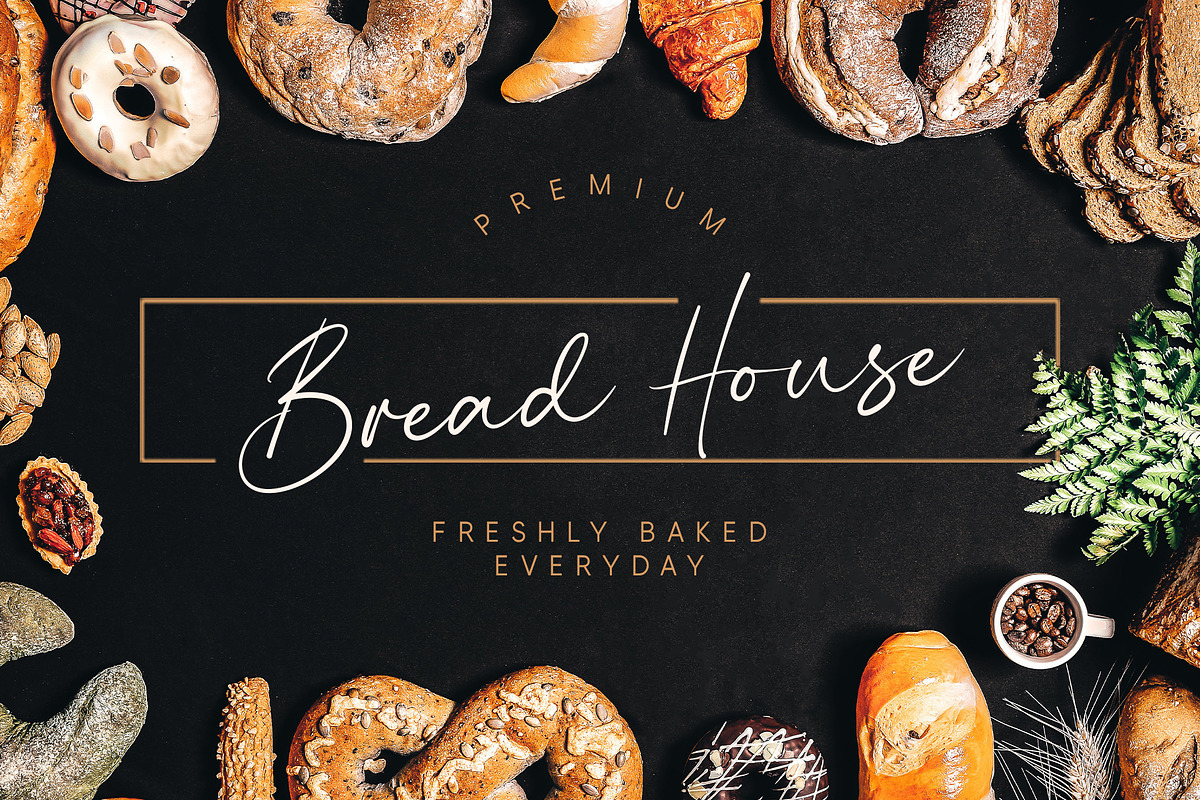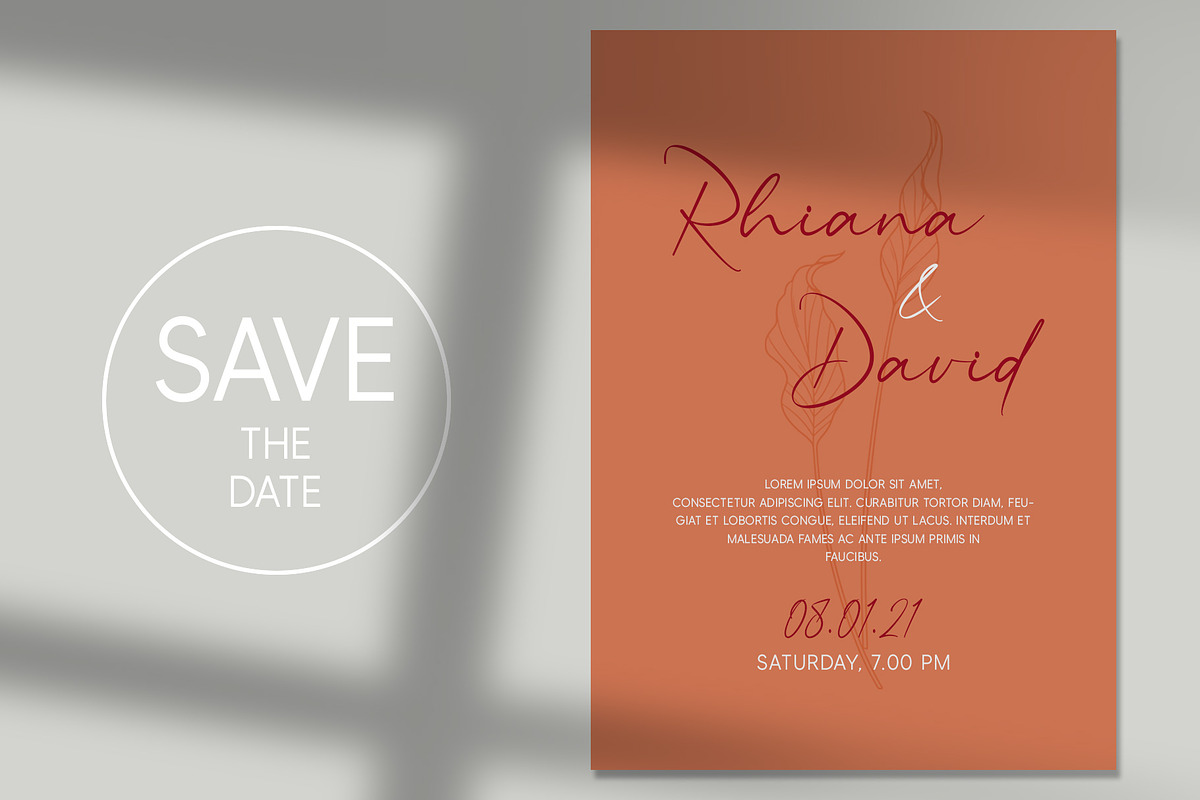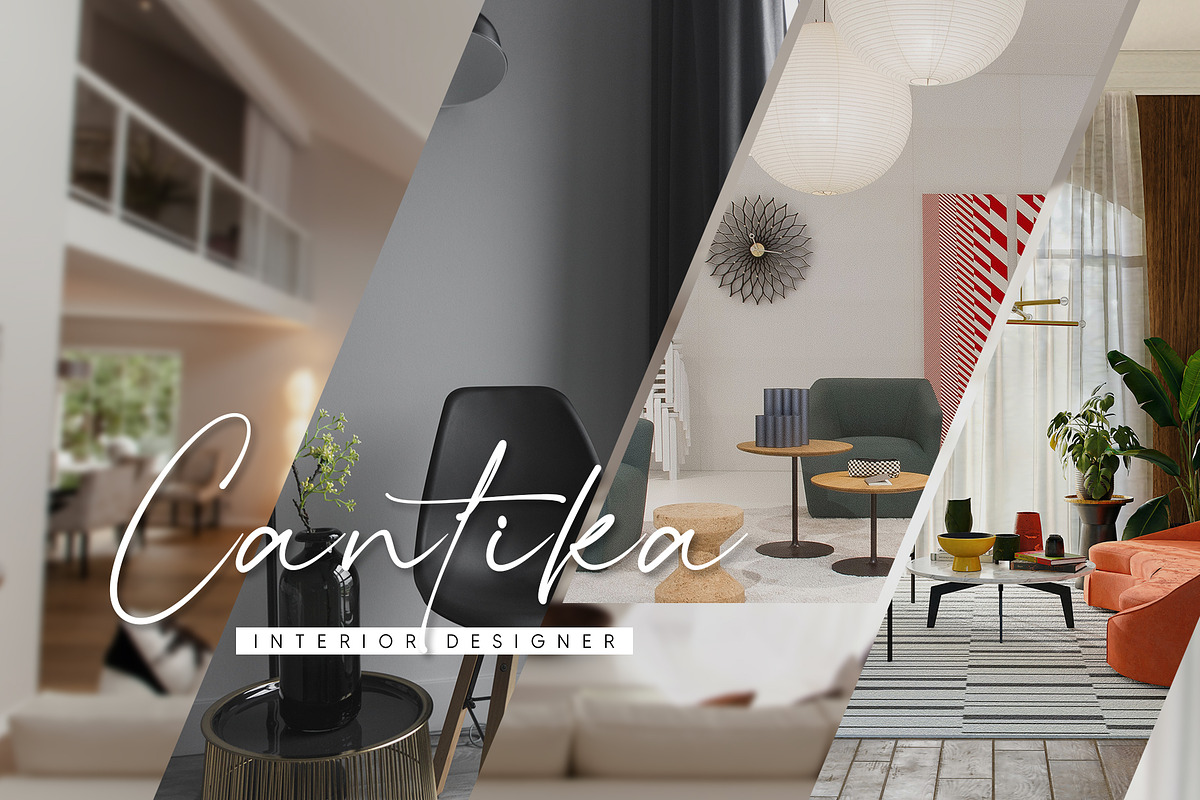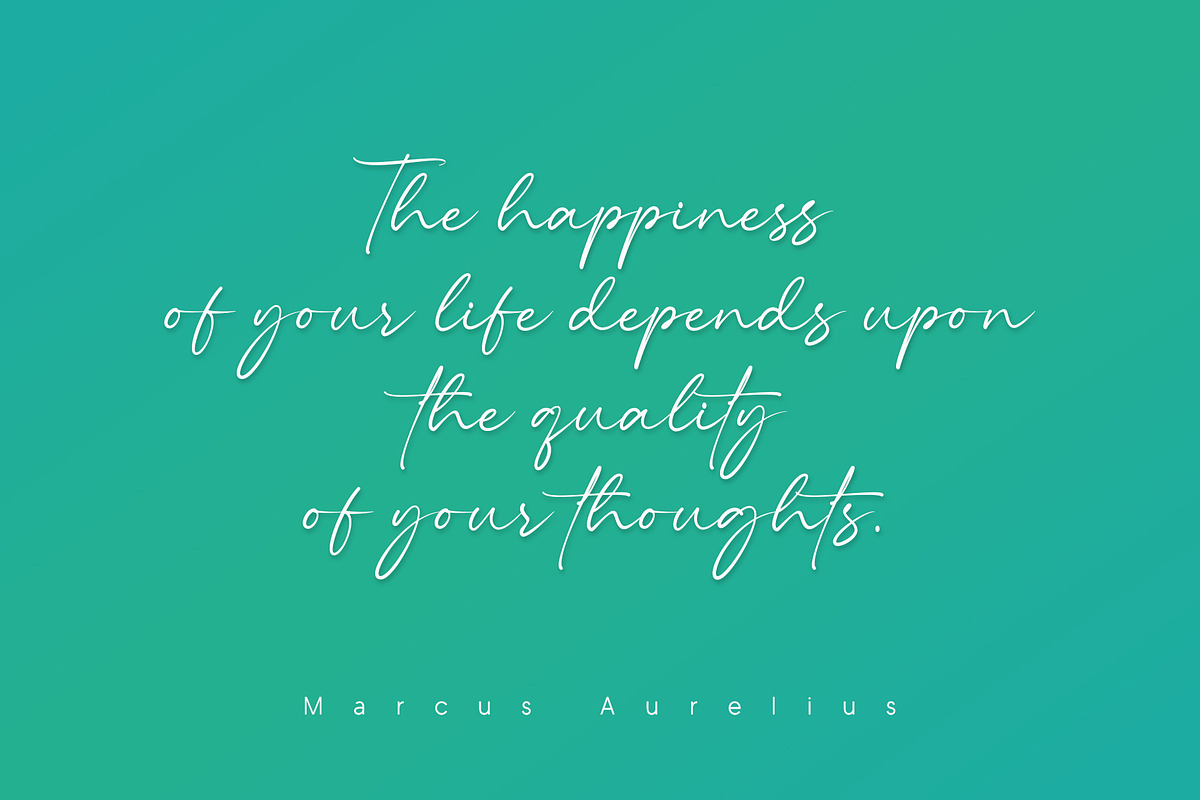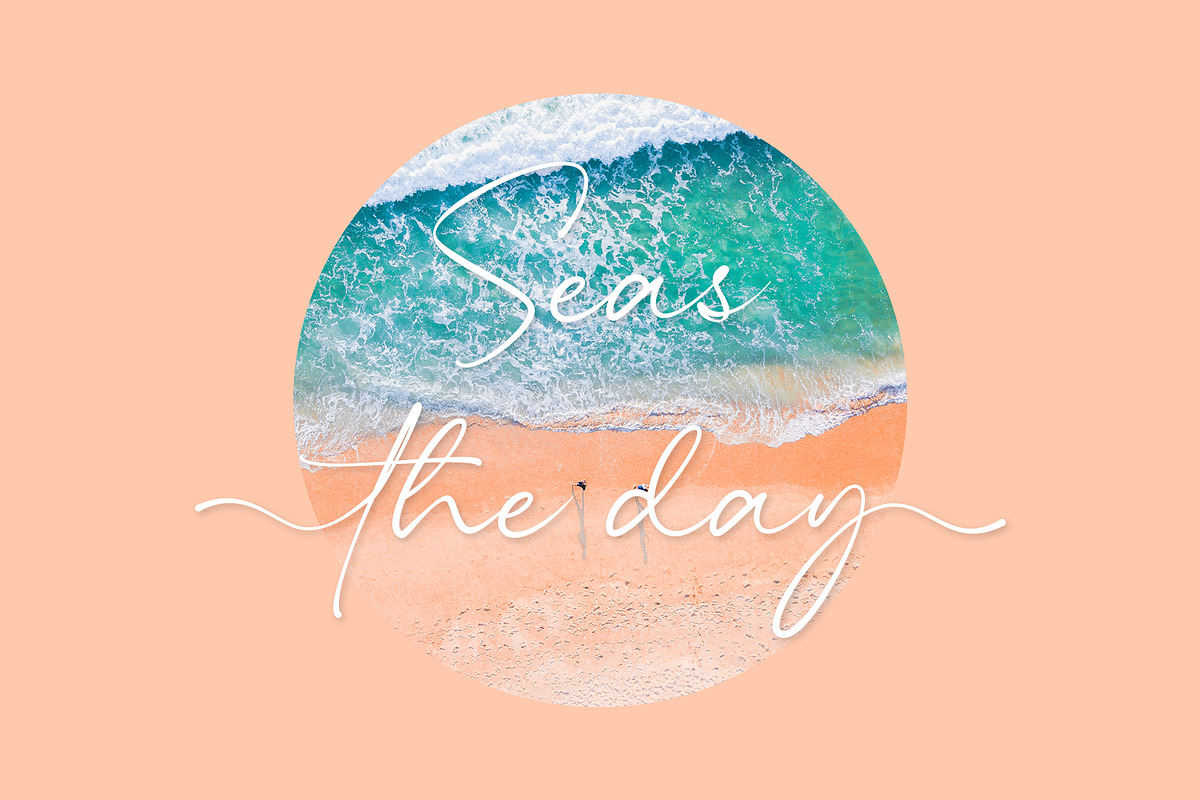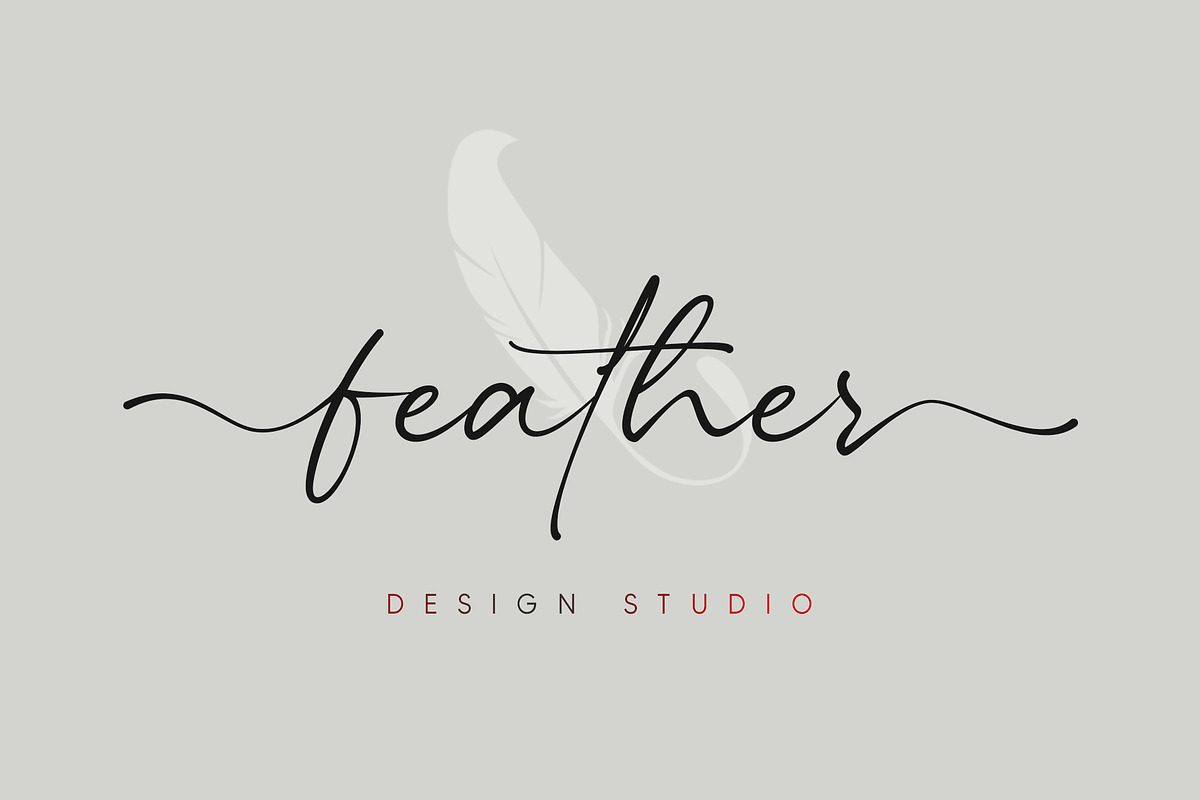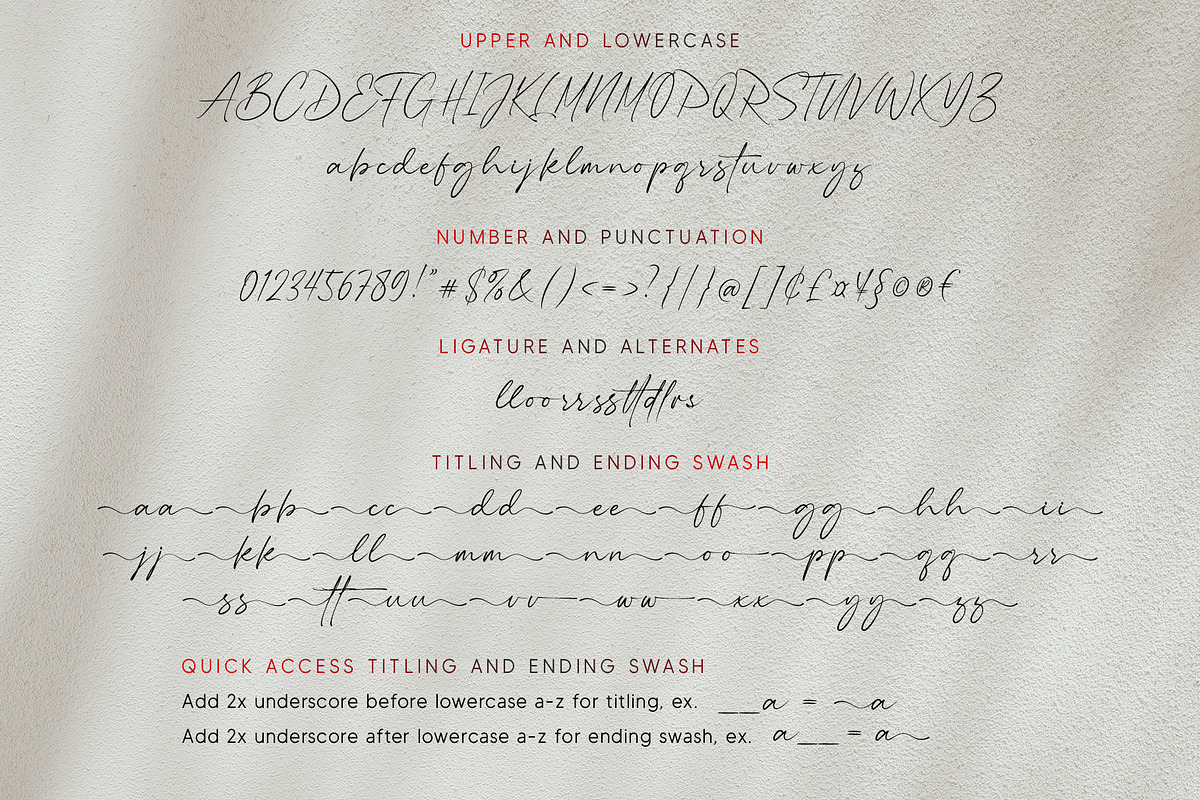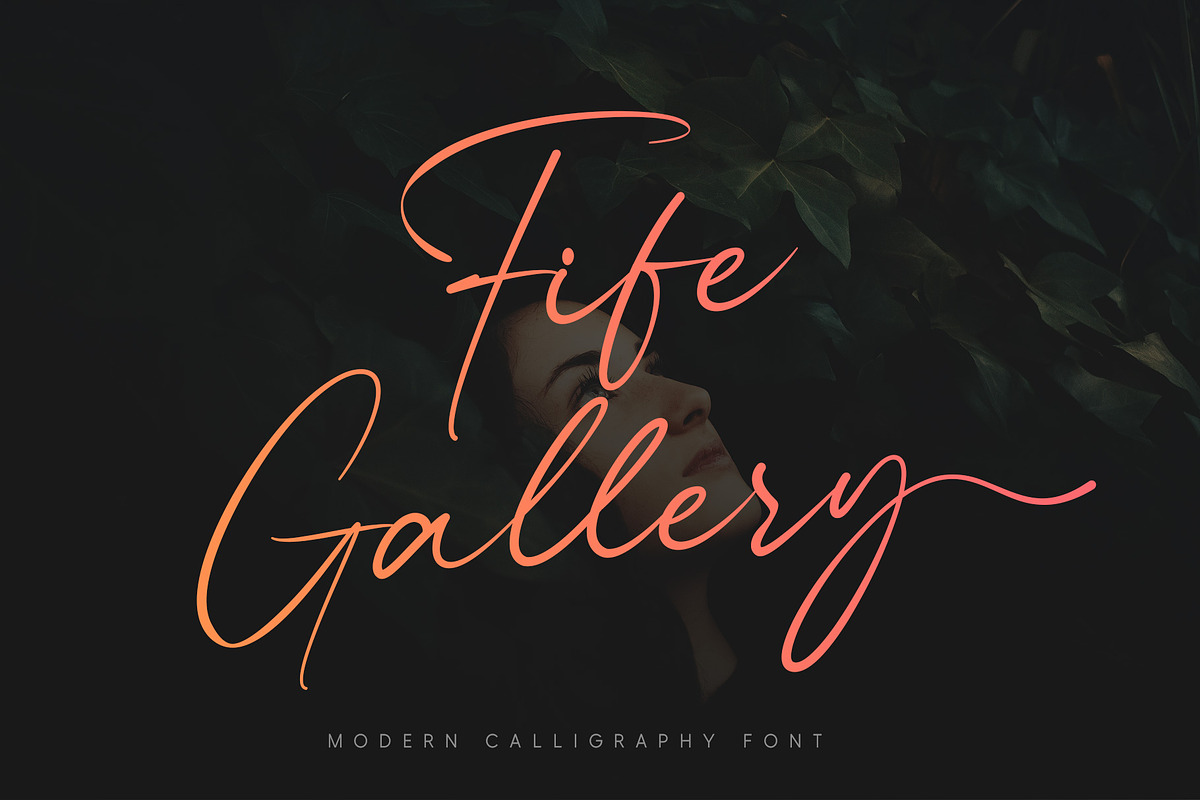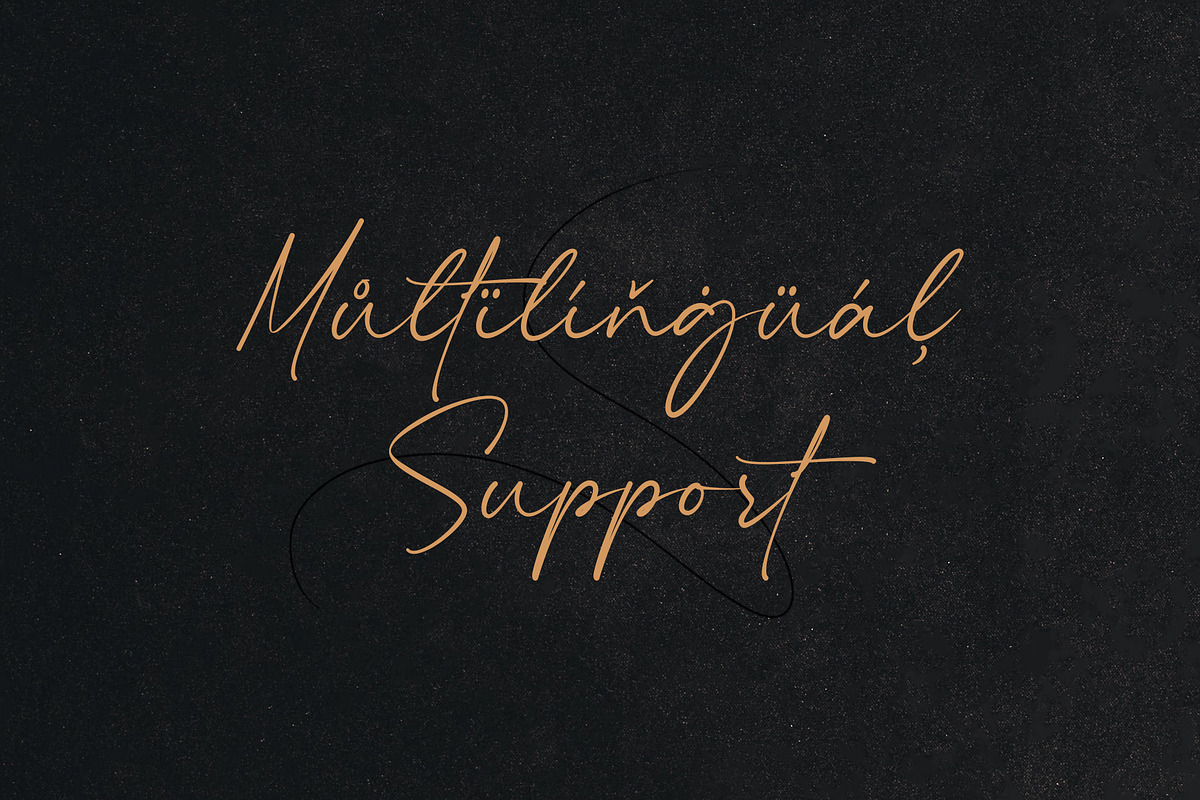
Fife Gallery | Modern Calligraphy
Fife Gallery is a stylish and incredibly elegant modern calligraphy font. It looks stunning on wedding invitations, quotes, greeting cards, logos, business cards and every other design which needs a handwritten touch.
- Titling
- Titling: Add 2x underscores before lowercase a-z
- Swash: Add 2x underscores after lowercase a-z